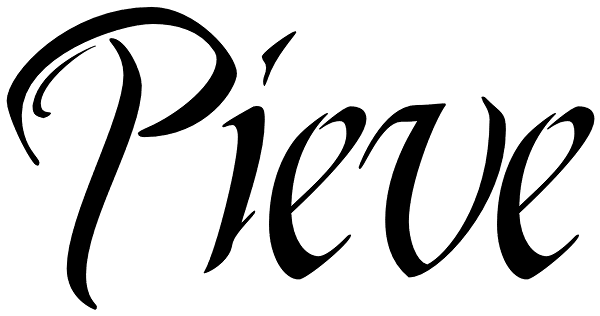
Pieve
Pieve (means community): The idea was to create a gestual and fresh typeface, almost rustic and sometimes elegant, a Latin typography popular and irreverent. This font comes with stylistic variations that highlight their regular handwriting. The...